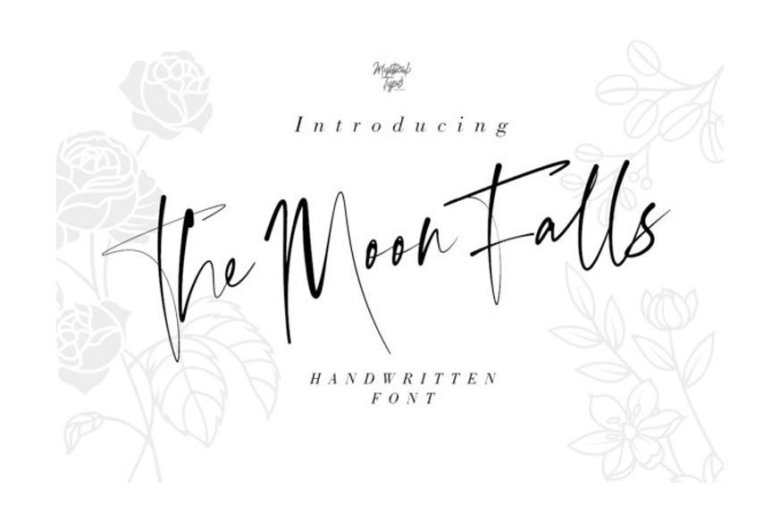
The Moon Falls Font
The The Moon Falls Font is an agile and expressive script. It’s fully hand drawn and was designed to recreate natural handwriting perfectly.